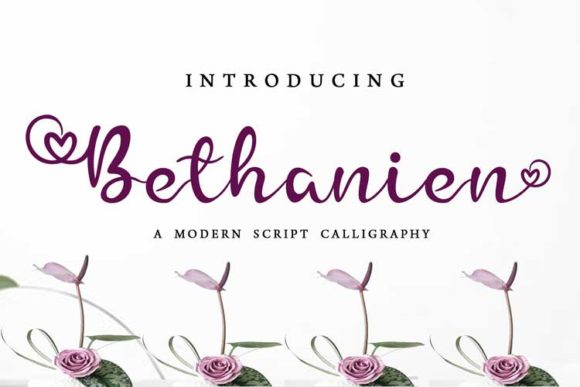
Prepare to be captivated by Bethanien, a script font that embodies grace and elegance. Its gentle curves and flowing lines evoke a sense of heartfelt warmth, making it the perfect choice for your most cherished moments.
With Bethanien, you have the power to transform your words into enchanting works of art. Its delicate strokes will add a touch of romance to wedding invitations, express gratitude on thank-you cards, and inspire creativity in heartfelt quotes.
But Bethanien's allure extends far beyond personal correspondence. Its sophisticated charm lends itself effortlessly to professional designs, making it an ideal choice for logos that demand attention and business cards that leave a lasting impression.
The beauty of Bethanien lies in its versatility. Whether you seek a font that whispers intimacy or commands presence, Bethanien adapts seamlessly to your vision. Its PUA encoding grants you access to a treasure trove of glyphs and swashes, empowering you to unleash your creativity without limits.
Indulge in the artistry of Bethanien, a font that will captivate your audience and leave an enduring mark on every design you create. Let its enchanting grace elevate your words and ignite your imagination.